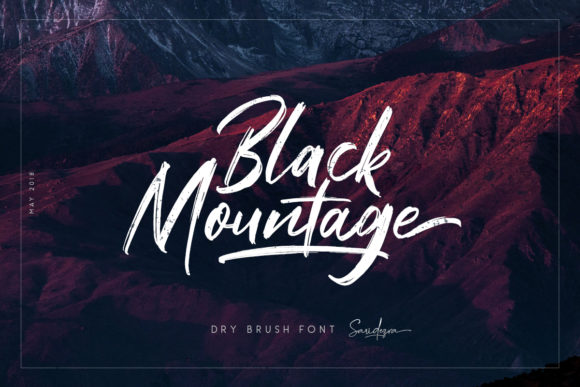
Unleash the captivating power of Black Mountage Font, a masterpiece of digital artistry that transcends the boundaries of ordinary typography. Immerse yourself in the world of culinary excellence as you discover the perfect font for menu boards that will leave a lasting impression on your customers. Step into the realm of gastronomic delight, where flavors dance on your palate and the ambiance is adorned with the elegance of Black Mountage Font.
With its enchanting script style, Black Mountage Font weaves a tapestry of visual intrigue, drawing the eyes to every delectable morsel on your menu. Experience the allure of handwritten artistry, where each letter is a stroke of pure genius, carefully crafted to evoke a sense of sophistication and charm. Let the words on your menu come alive, tantalizing taste buds and igniting the imagination with every glance.
Black Mountage Font is not merely a collection of letters; it is an artistic masterpiece that elevates the dining experience to new heights. Its graceful curves and sweeping strokes create a visual symphony that complements the finest culinary creations. Picture your menu adorned with the elegance of Black Mountage Font, where every dish becomes a work of art, beckoning customers to embark on a culinary journey like no other.
But Black Mountage Font is not just about aesthetics; it is a font of unparalleled functionality. Its carefully chosen letterforms ensure effortless readability, even from a distance, making it the perfect choice for busy restaurants and cafes. Whether it's the daily specials, a tempting dessert menu, or an extensive wine list, Black Mountage Font delivers a seamless and enjoyable reading experience for your customers.
Imagine the possibilities as you explore the creative horizons of Black Mountage Font. Its versatility extends beyond menu boards, making it an ideal choice for invitations, wedding stationery, social media posts, and any project where a touch of elegance and sophistication is desired. Let your imagination run wild as you transform ordinary text into captivating masterpieces, leaving an unforgettable impression wherever it's used.
With Black Mountage Font, you hold the key to unlocking a world of culinary artistry and visual delight. Its exquisite design and unwavering functionality make it the perfect choice for menu boards and beyond. As you embrace the power of Black Mountage Font, you open the door to a new realm of possibilities, where every word becomes a work of art and every dining experience a memorable occasion.